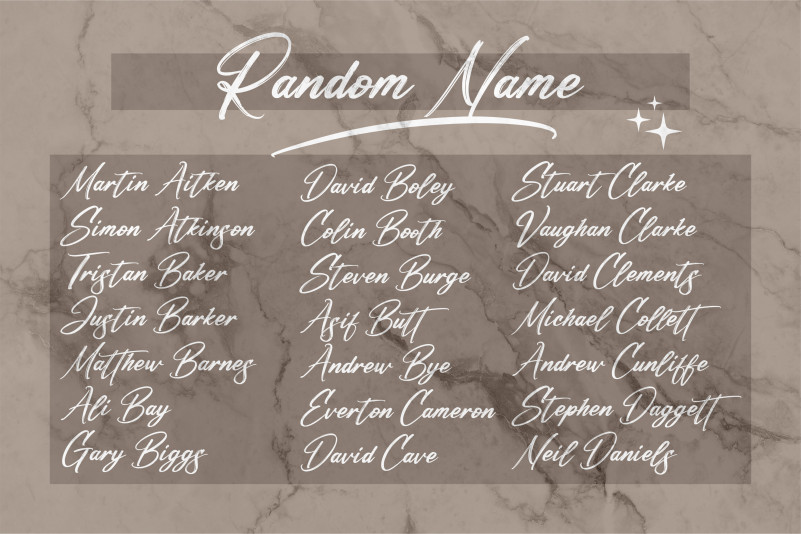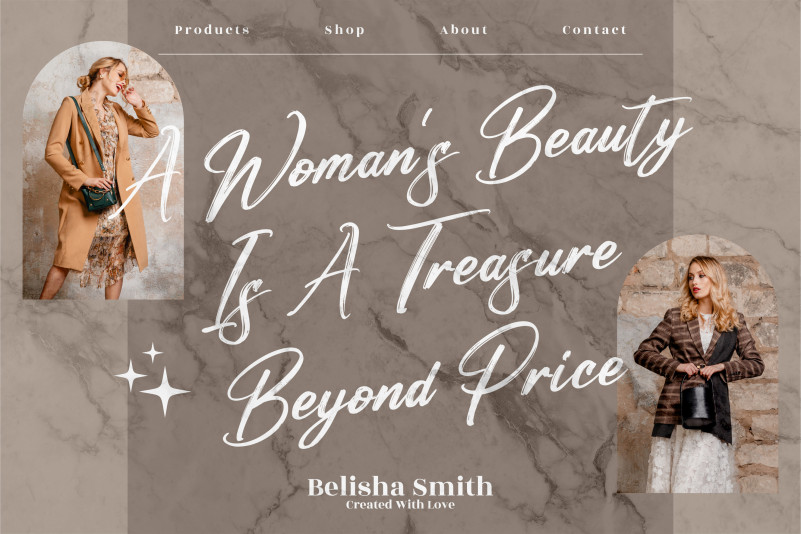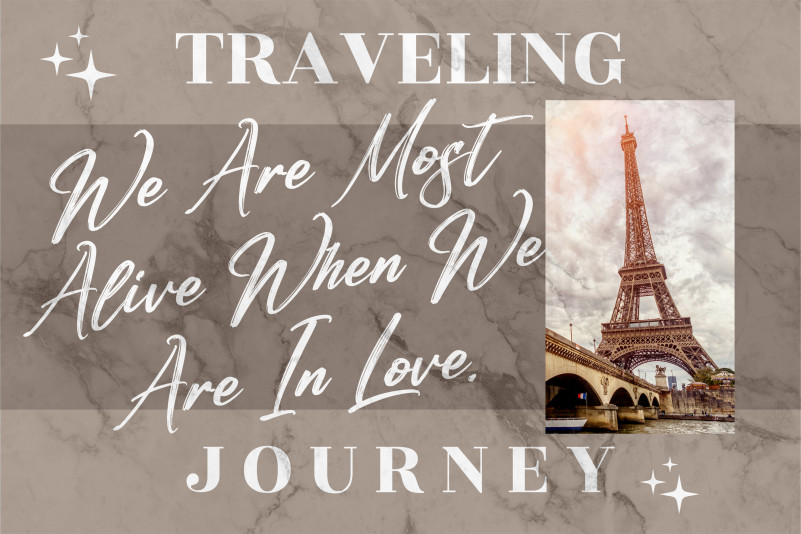
Patterson Southern Font
Patterson Southern Brush Font
This is a beautiful and cursive brushed handwritten font, with a unique feel and a stunning impact. It will add a luxury spark to any design project that you wish to create!